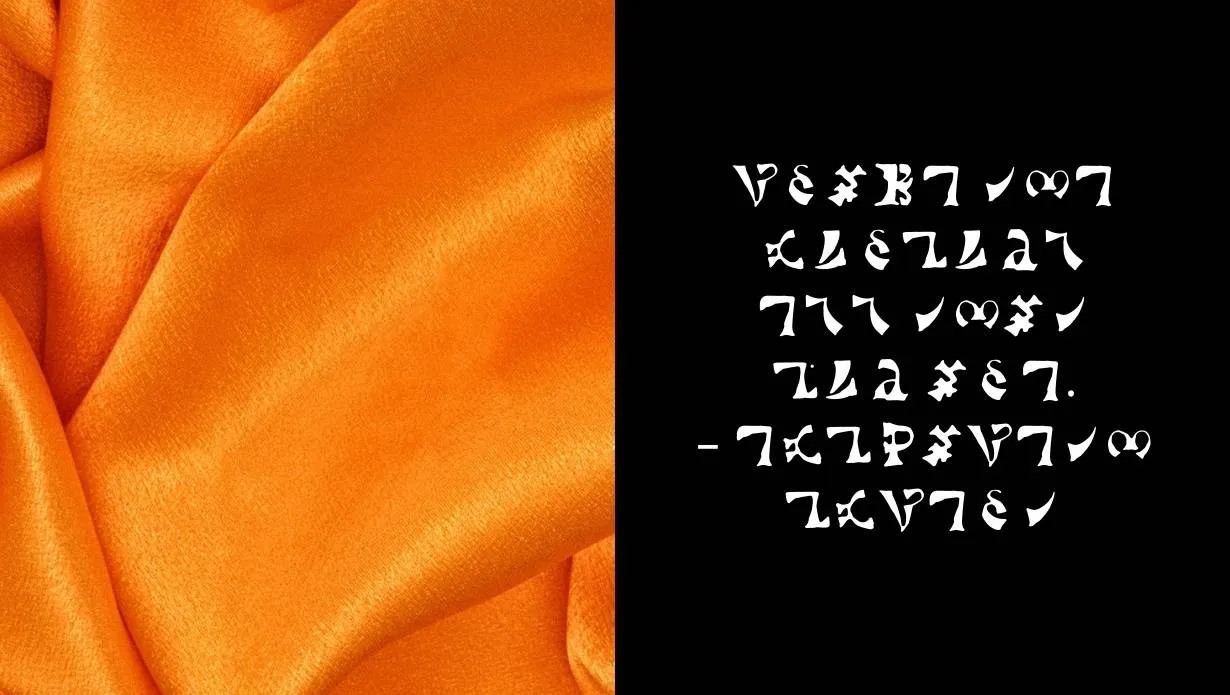
Enochian Font was developed and shared by Digital Type Foundry. It belongs to the Script typeface. This typeface is characterized by sharp, clean shapes and strokes. This cute font has a very distinct look that makes it perfect for headlines, titles, and other attention-grabbing text. It is well specified by the CSS.
It consists of different amazing characters. The wide space between its characters makes it one of the best fonts for headlines and titles.
| Name | Enochian Font |
| Designer | Digital Type Foundry |